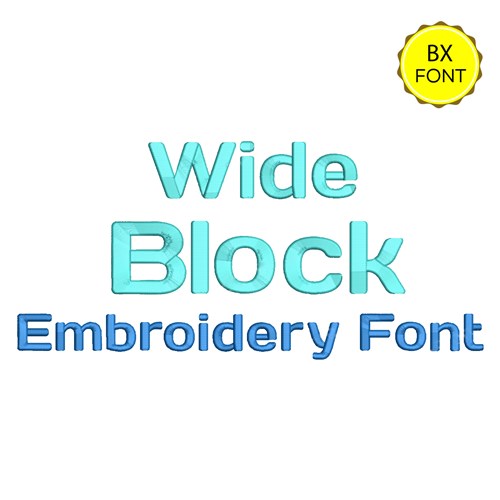
Maya Kreations is happy to present Wide Block Embrilliance Embroidery Font - Wide Block Style - BX font machine embroidery font which has Wide block machine embroidery font, perfect for clean, bold designs on items like jackets or banners. The font showcases a smooth outline with a gradient effect. Available in BX font and Embrilliance formats. included. If you would like to view more embroidery fonts and alphabets please search our embroidery fonts page.
Wide Block Embrilliance Embroidery Font - Wide Block Style - BX font